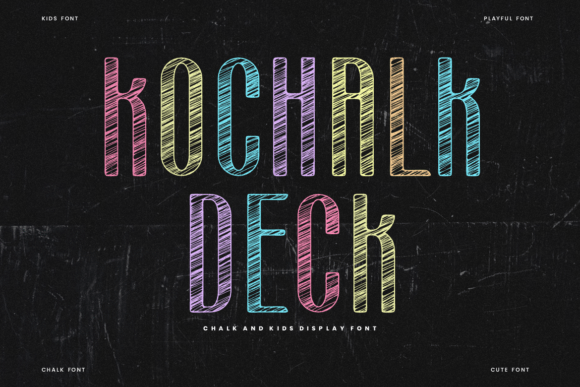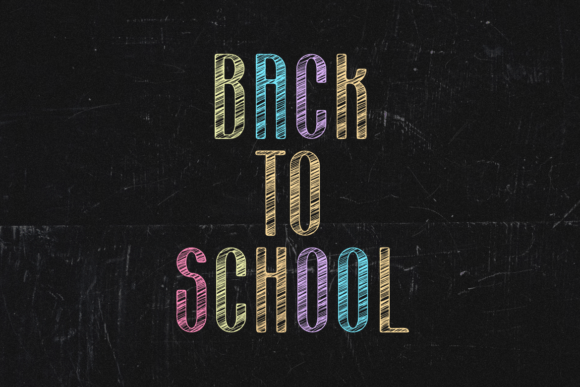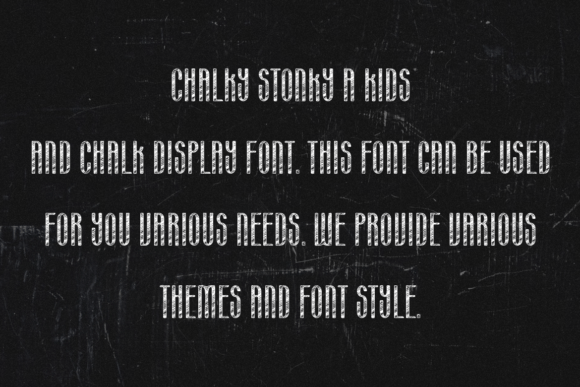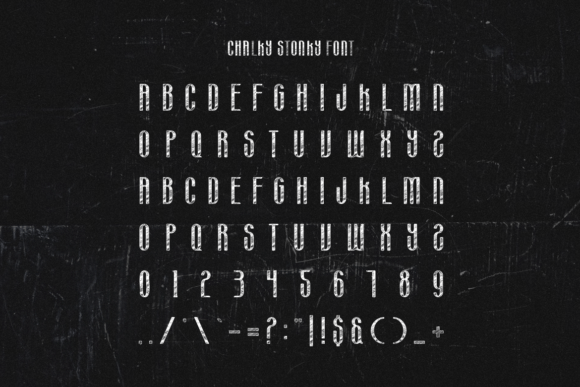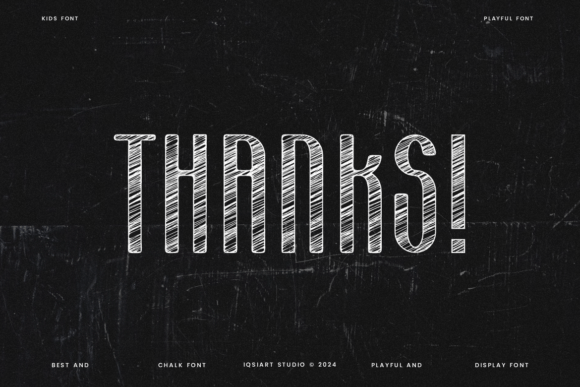
Discover the Joy of Hand-Drawn Typography with Chalky Stonky Font
Who among us hasn’t doodled on a chalkboard in school, watching as the scribbled lines and colorful marks came together to create a unique piece of art? For designers, that same sense of creativity and playfulness is now at their fingertips with the Chalky Stonky Font.
This vibrant font is designed to bring a fun, hand-drawn feel to any project, making it perfect for school designs, kids’ projects, posters, signage, and creative branding. With its textured, scribbled lines and colorful aesthetic, the Chalky Stonky Font adds a lively and engaging touch to your typography, making it a valuable tool for designers looking to add a personal touch to their work.
Chalky Stonky Font Key Features
- Font Family: Chalky Stonky
- Unique Characteristics: Distressed, chalkboard-inspired aesthetic with subtle texture and grunge effects
Designer Review: Chalky Stonky Font
Overall, I’d say the Chalky Stonky Font has its charm. It’s a fun, playful font that could work well for certain projects. ✨
Here are some of the things I like about it:
- Unique, hand-drawn aesthetic that adds character to text
- Works well for headings and titles, adding a touch of whimsy
- Can be used effectively for children’s books, educational materials, or other projects that require a playful tone
- May be difficult to read for large blocks of text due to its informal, handwritten feel
- Lack of consistency in letterforms and spacing may make it hard to use for complex layouts
- Not suitable for formal or professional applications
⚠️ In conclusion, while the Chalky Stonky Font has its uses, it’s essential to be mindful of its limitations. If you’re looking for a fun, eye-catching font for a specific project, it might be worth considering. But for general use, you may want to look elsewhere.
Chalky Stonky Font is ideal for creative projects, such as invitations, posters, and social media graphics. To get the most out of it, use it in conjunction with bold colors and playful graphics. You can also use it to add a touch of whimsy to your business branding or marketing materials.
Q: How do I ensure the best results when using Chalky Stonky Font in combination with other fonts?
Q: What is the recommended line spacing for paragraphs set in Chalky Stonky Font?
The recommended line spacing for paragraphs set in Chalky Stonky Font is 1.2 to 1.5 times the font size. This line spacing allows for easy reading and helps to maintain the font’s unique rhythm. For example, at a font size of 16px, use a line height of 19.2px to 24px.